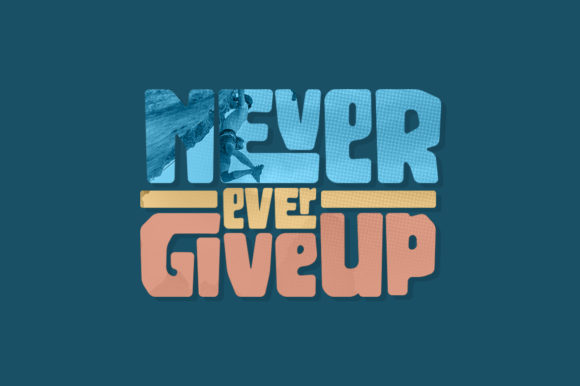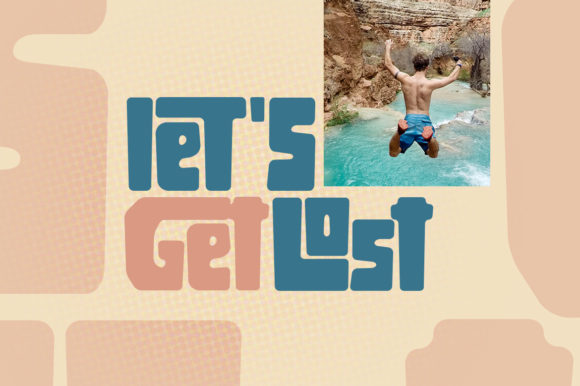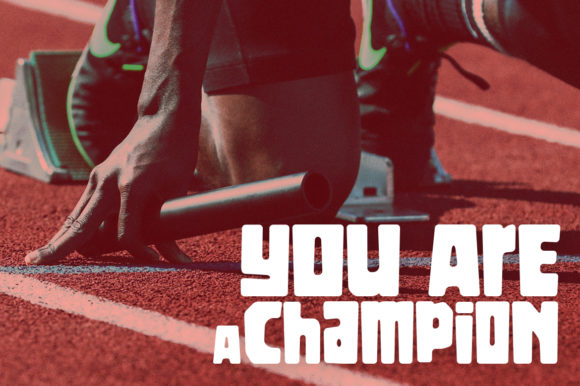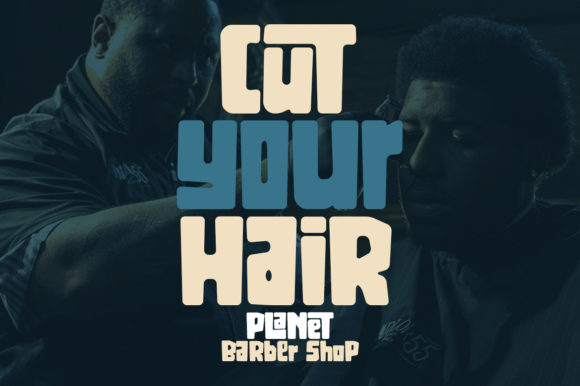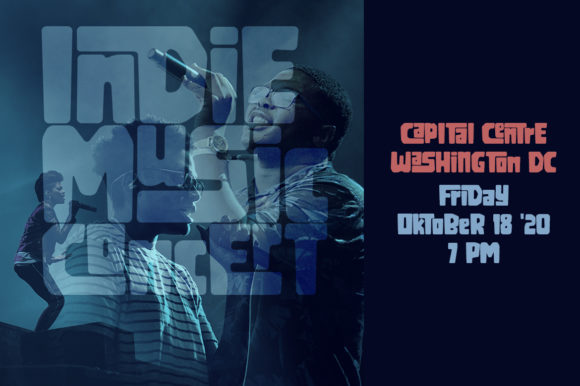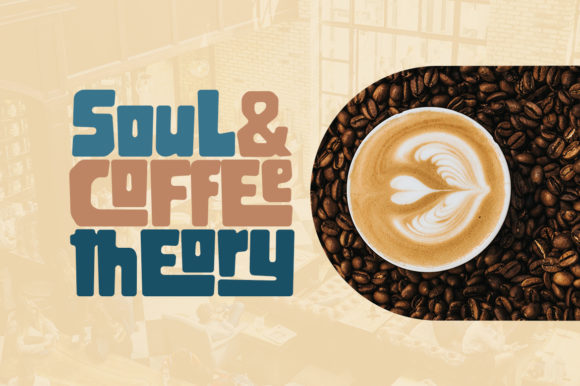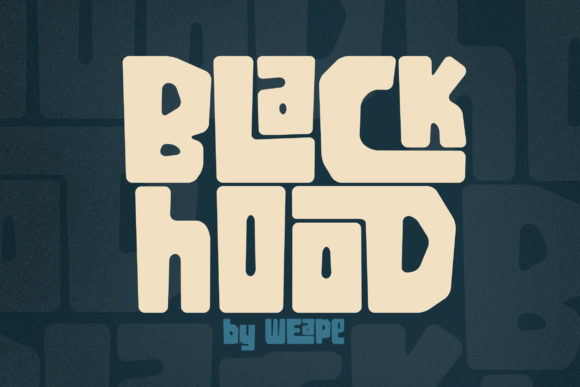
Introducing Blackhood Font: Elevate Your Designs with a Standout Style
Are you tired of using the same old fonts in your design projects? Do you want to add a touch of uniqueness and personality to your creations? Look no further than Blackhood Font, a round and smooth display font that’s sure to turn any design project into a true standout!
What is Blackhood Font?
Blackhood Font is a modern display font that’s designed to make a statement. Its rounded and smooth edges give it a friendly and approachable feel, making it perfect for designs that require a touch of personality. Whether you’re working on a branding project, a website design, or a craft project, Blackhood Font is sure to grab attention and leave a lasting impression.
Key Features of Blackhood Font
- Round and Smooth Edges: Blackhood Font features rounded and smooth edges that give it a unique and distinctive look.
- Display Font: Designed specifically for display purposes, Blackhood Font is perfect for headlines, titles, and other design elements that require a bold and eye-catching style.
- Highly Versatile: Blackhood Font can be used in a variety of design projects, from branding and advertising to website design and crafting.
- Easily Readable: Despite its bold and decorative style, Blackhood Font is surprisingly easy to read, making it perfect for designs that require a clear and concise message.
Who is Blackhood Font for?
Blackhood Font is perfect for designers, crafters, and DIY enthusiasts who want to add a touch of personality to their creations. Whether you’re working on a personal project or a client’s design brief, Blackhood Font is sure to help you stand out from the crowd.
Some examples of designers and crafters who may benefit from using Blackhood Font include:
- Graphic designers working on branding and advertising projects
- Web designers looking for a unique and eye-catching font for their website designs
- Crafters and DIY enthusiasts creating handmade products, such as signs, cards, and gift tags
- Stationery designers creating custom stationery and paper products
How to Use Blackhood Font
Here are a few tips for getting the most out of Blackhood Font:
- Use it as a display font to grab attention and add emphasis to your design
- Pair it with a simpler font for body text to create a clear and readable design
Blackhood Font is a unique and versatile display font that’s perfect for designers, crafters, and DIY enthusiasts who want to add a touch of personality to their creations. With its round and smooth edges, highly versatile design, and easily readable style, Blackhood Font is sure to turn any design project into a true standout. So why wait? Download Blackhood Font today and start creating designs that grab attention and leave a lasting impression!